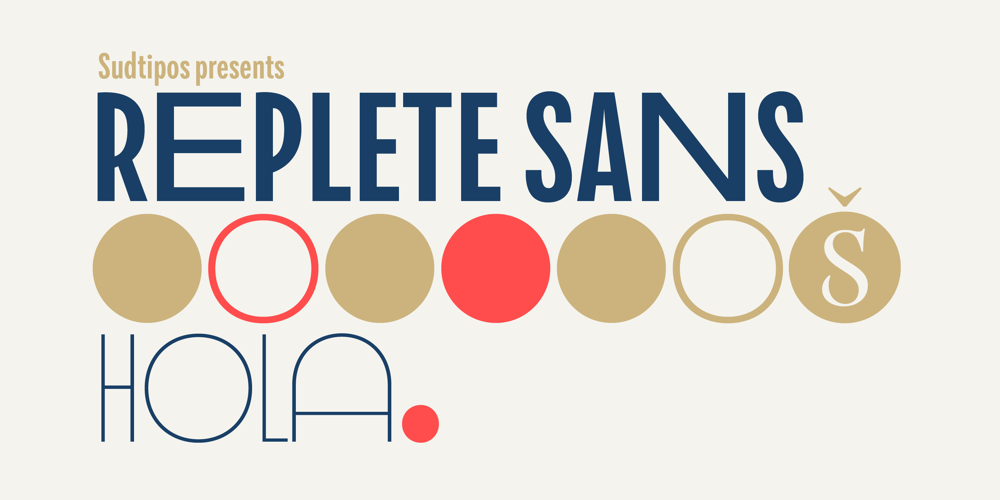
Replete Sans
Replete Sans font
Replete Sans Font Family was designed by Alejandro Paul and published by Sudtipos. Replete Sans contains 9 styles and family package options. Sudtipos’ new sans serif font Replete is inspired by the mixture of aesthetics and philosophies found on the streets of metropolitan cities the world over. Buildings constructed throughout the twentieth century, including those made in the Art Deco style or influenced by the Bauhaus’s gospel, stand side-by-side as symbols of their time. Typography is one factor that bonds these vistas, and simultaneously further complexifies them. Art deco letters appear on storefronts and signage in Europe’s oldest cities and as remnants of the Golden Age of economic expansion for Latin America. Typography, like architecture, sometimes coexists in perfect harmony, and other times in ideological opposition. But it is these juxtapositions in places such as Shanghai, New York, London, Buenos Aires and Tokyo that shape each city’s identity. Replete is inspired by this mixture. We wanted to create a useful modern sans serif family – a set of 7 weights with playful geometric alternates – that allows you to combine characters including wide-width and filled letterforms. Replete is apt for long texts, and equally, for instances where letterforms can stand together like a cityscape. Replete means full, packed and abounding … it is a sans, it is grotesque, it is geometric and it is Deco. Replete is a new family that has a little of everything we like, equipped with everything you need to design anything you want.